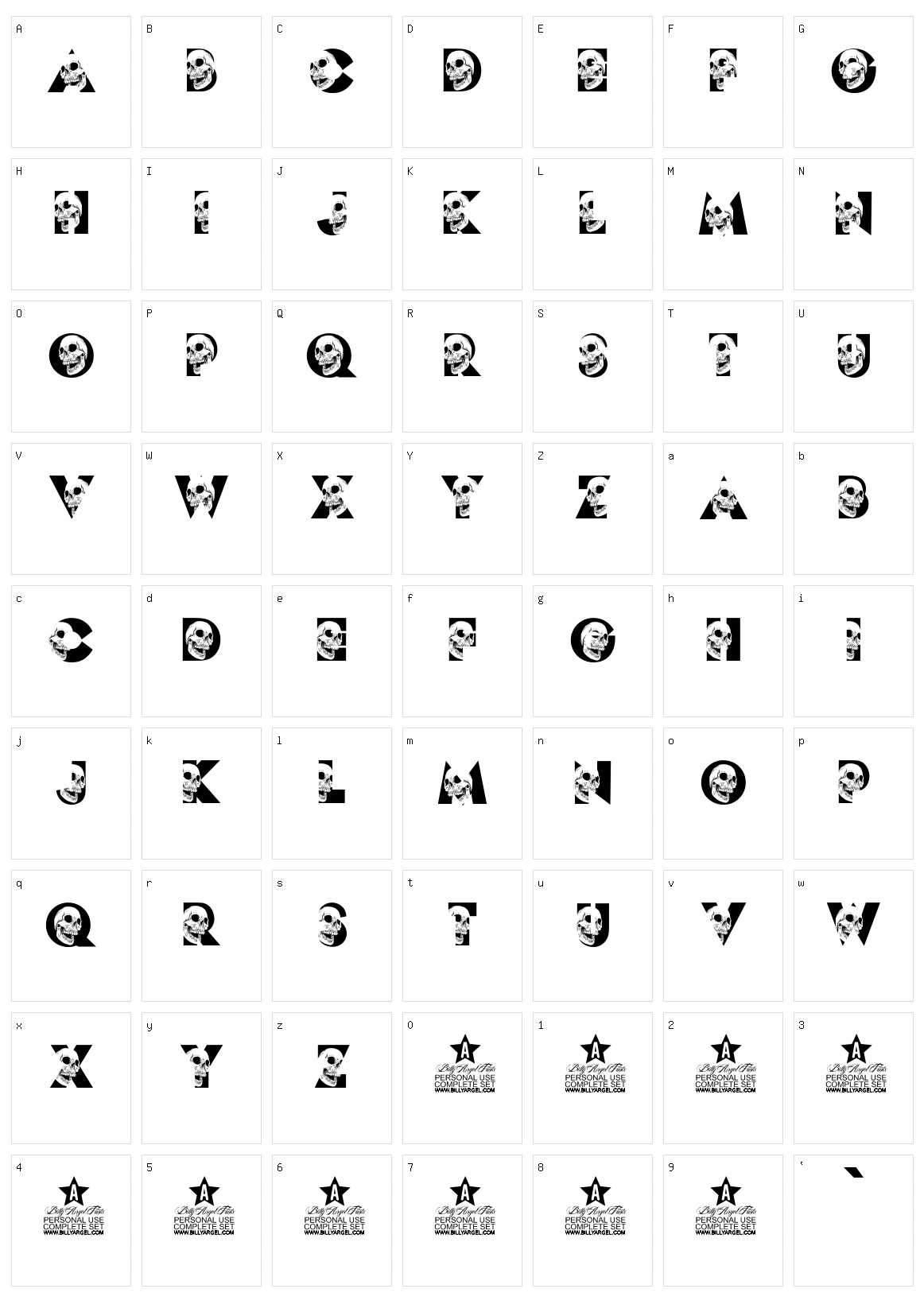
The free font Smile is carefully designed by Billy Argel Fonts ®, showcasing a thoughtful balance of creativity and usability and falls under the Horror font style. When you download the ZIP file, it contains only 1409.17 KB of font files, making it lightweight and quick to download. Please review the license details below to understand permitted usage and distribution rights. If license information is not available, we recommend using this font for personal projects only or contacting the author directly for commercial usage permissions.